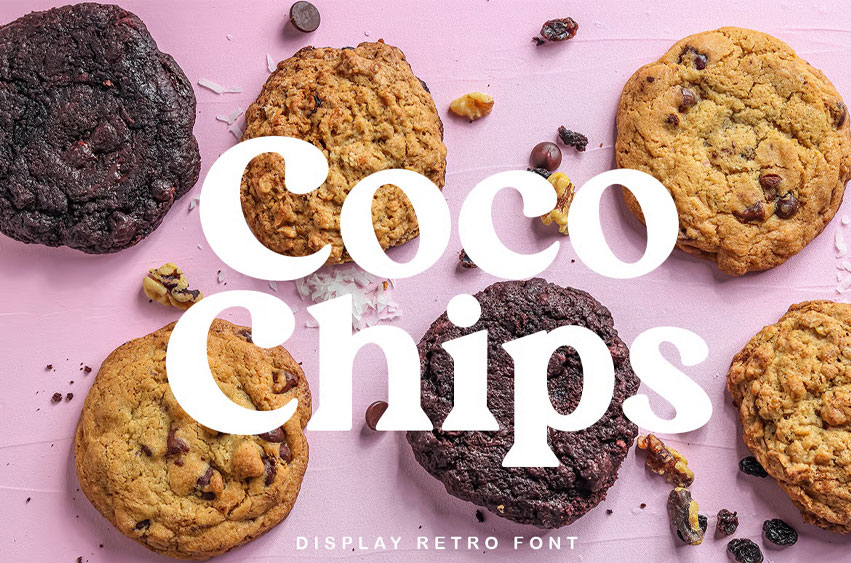
Choco Chips Font
The Choco Chips Font includes uppercase and lowercase letters, numerals, and a wide range of punctuation.
Serif font with retro style. Created for posters, web design, branding, illustrations, badges, and some other works.